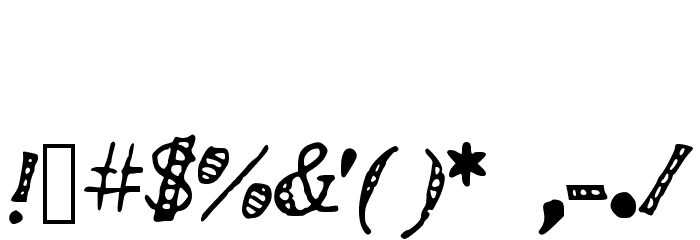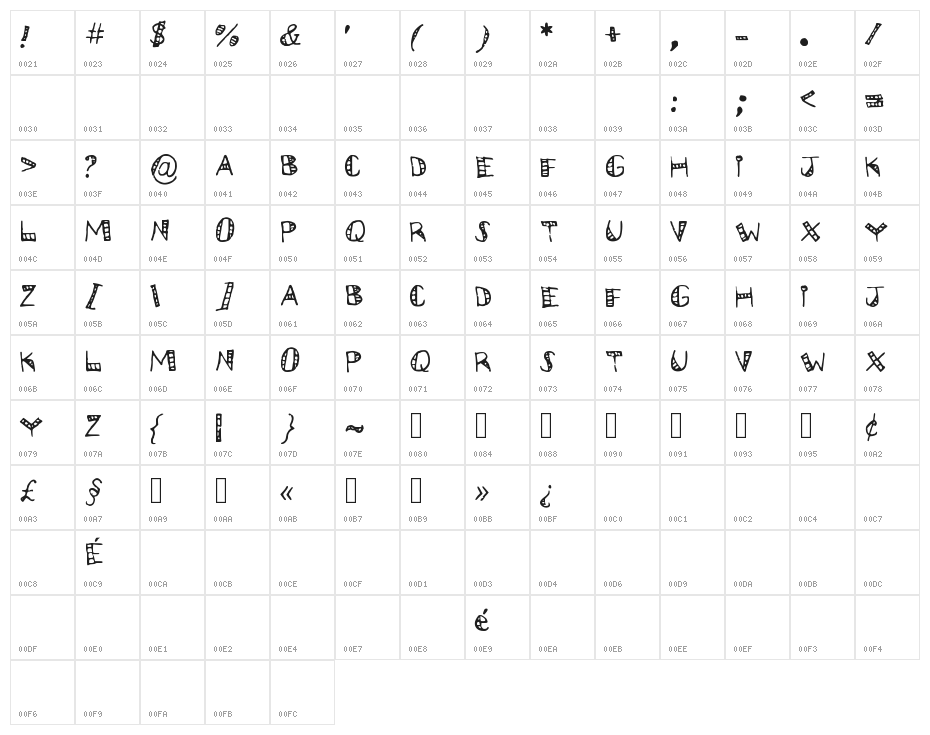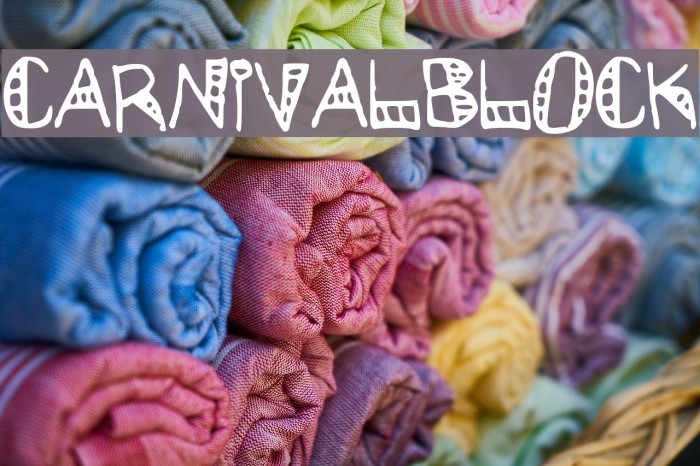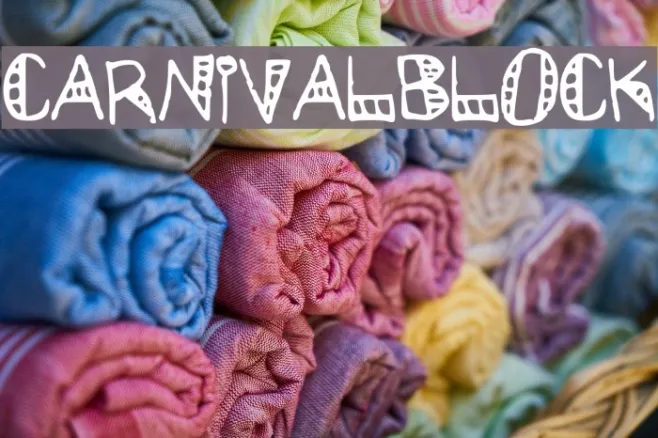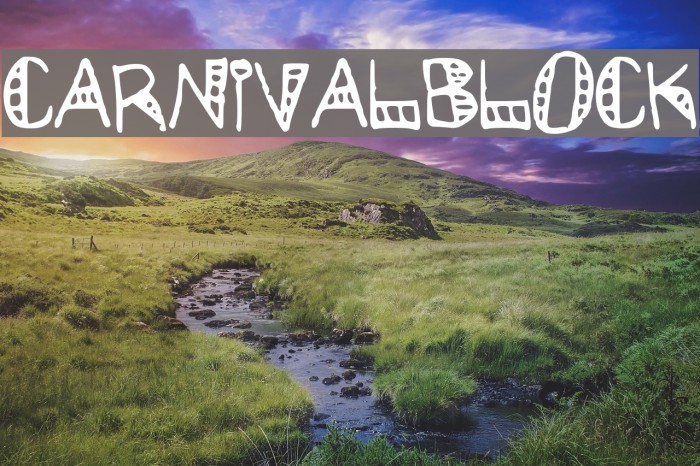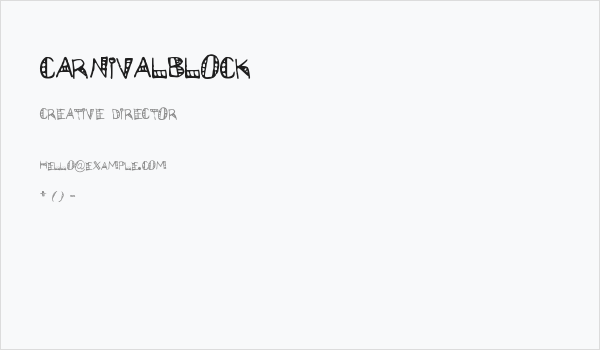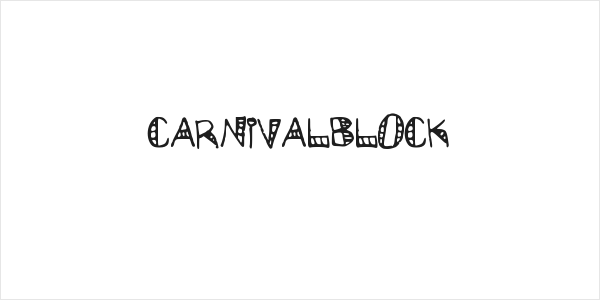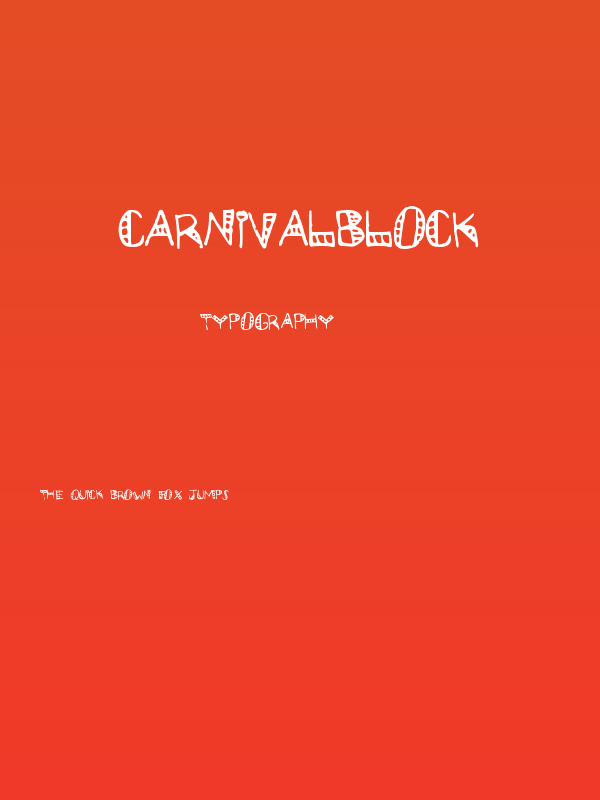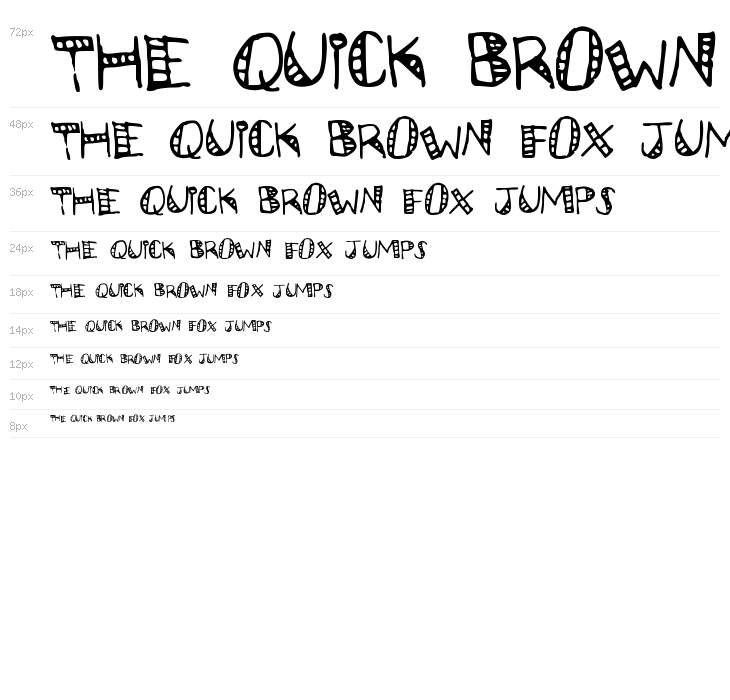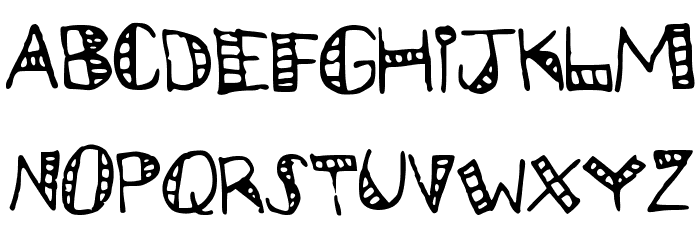
CarnivalBlock Font
CarnivalBlock Description
This font features a playful and whimsical design, characterized by its bold and decorative style. Each letter is uniquely crafted with a hand-drawn appearance, incorporating elements reminiscent of a festive or carnival theme. The uppercase and lowercase letters maintain a consistent style, with exaggerated curves and playful embellishments that add to its charm. The numbers and special characters are equally stylized, ensuring a cohesive look across all glyphs. This font's distinctive personality makes it ideal for projects that require a fun and lively touch.
| Overall Style | Whimsical, Playful |
| Proposed Projects | Ideal for party invitations, children's book covers, festive banners, and playful branding. |